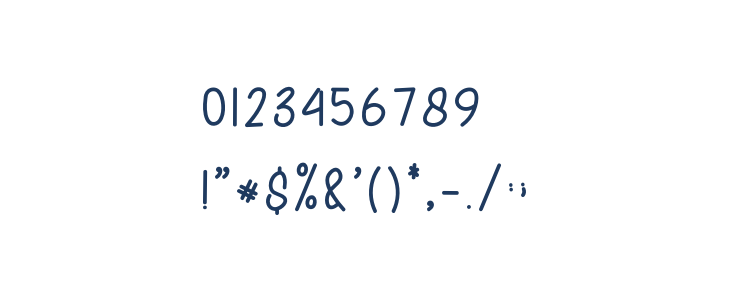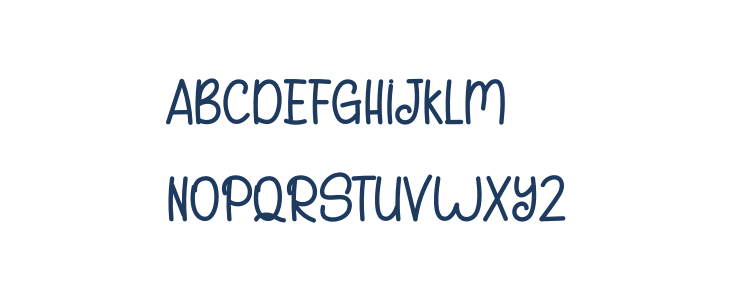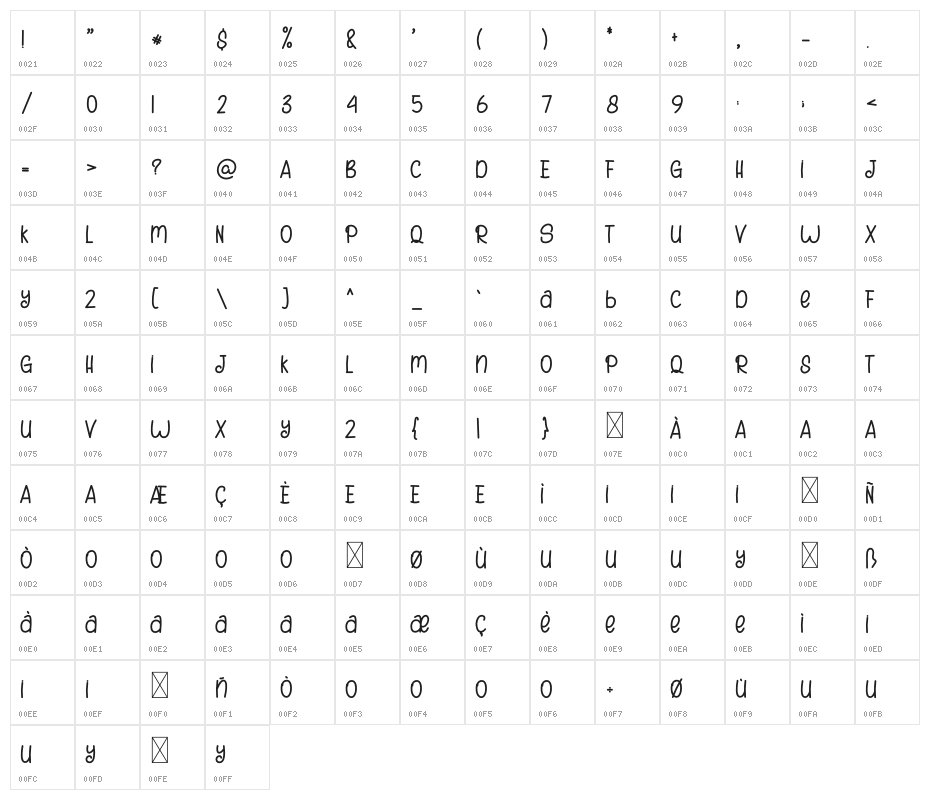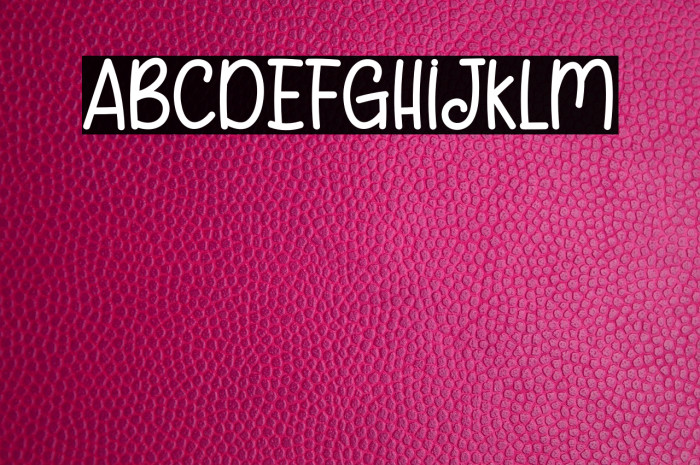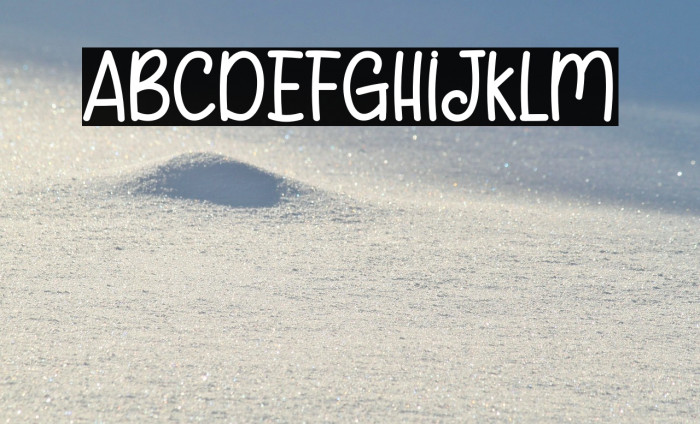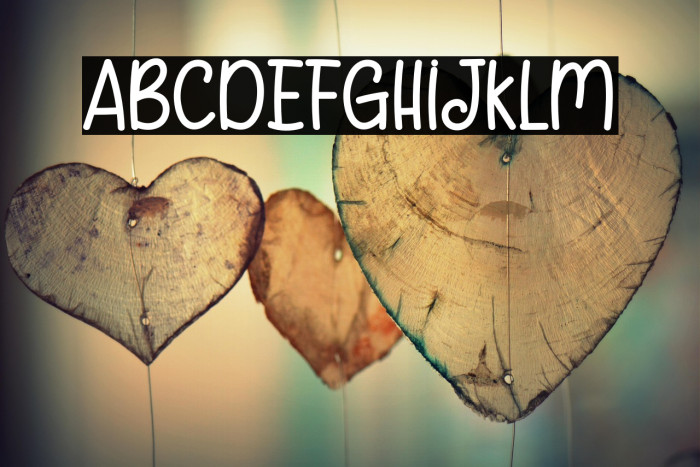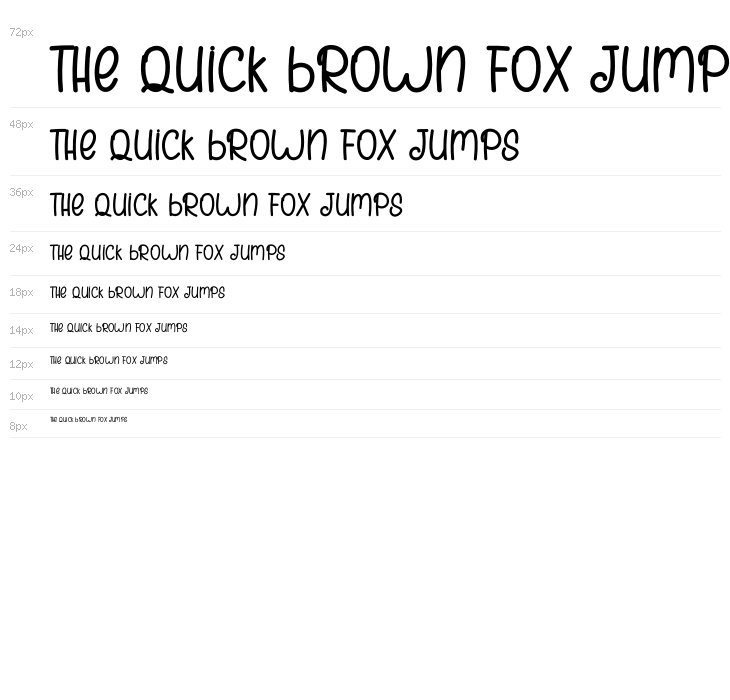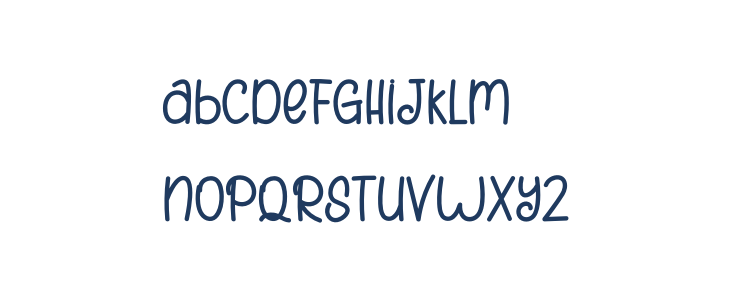
Simple Black Font
Simple Black Description
A playful, rounded sans-serif font with a handwritten feel, featuring consistent stroke width and slightly irregular letterforms that add a casual, friendly character.
| Overall Style | Playful, Casual, Handwritten |
| Use Case | Headlines, Posters, Informal text, Branding |
| Proposed Projects | ChildrenΓ’β¬β’s books, greeting cards, informal branding, posters, educational materials. |